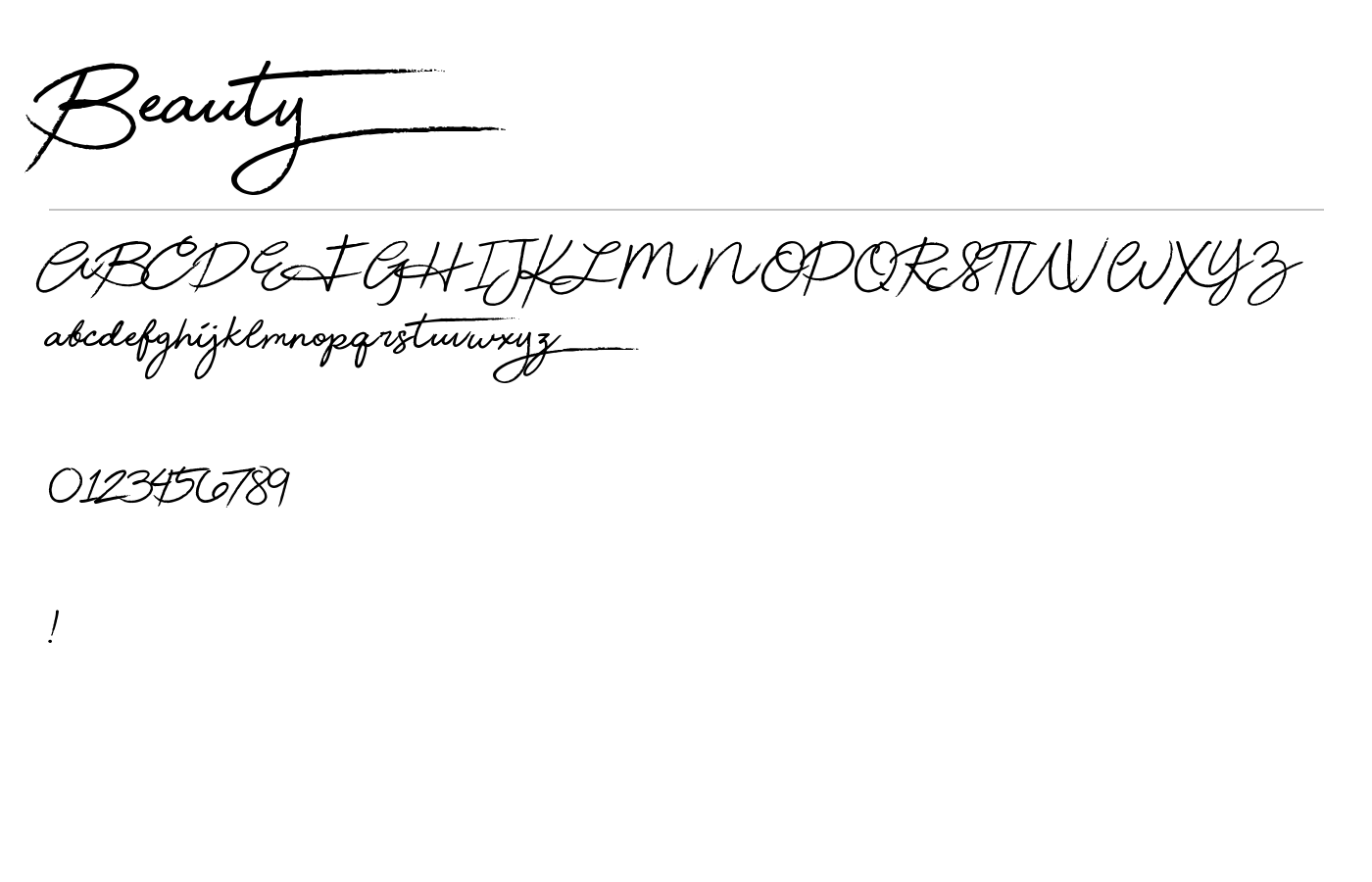
Beauty Font is an elegant, handwritten script font with a light weight and flowing, airy strokes that mimic natural calligraphy. Its unique, slightly uneven lines and smooth curves give it a personal, artistic feel, making it perfect for branding, invitations, and creative projects where a refined yet approachable touch is desired. This font works best in logos, headlines, and decorative text, lending sophistication and charm without overwhelming the design.
Beauty Font
About Beauty Font
| Font family | Beauty Font |
| Designer | Premiere Graphics |